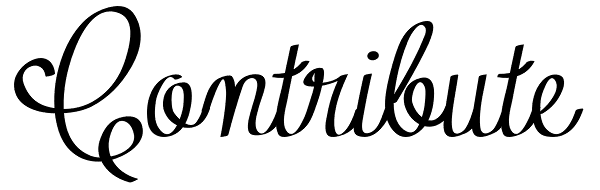
Contribute
The Contribute font is one that takes you back to the days of the fountain pen. To those who are old enough to remember, fountain pens were tiresome to fill and use – but also a pleasure to own, something to cherish that became so much a part of...